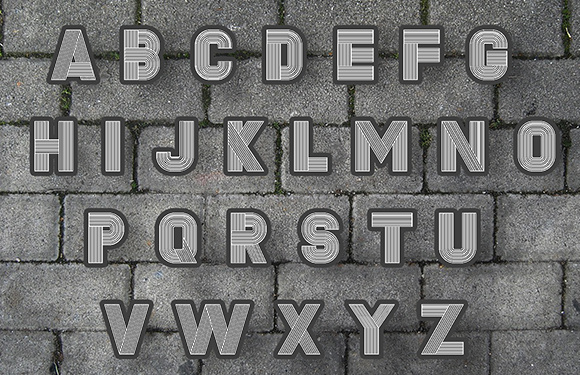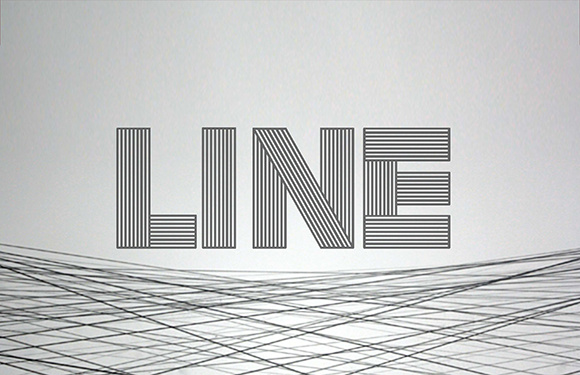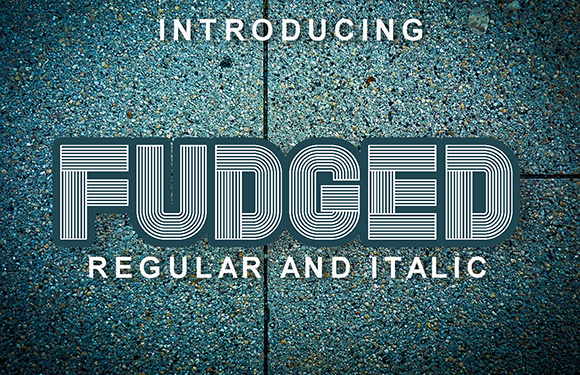
Fudged Font: Elevate Your Designs with a Techno Twist
In the world of typography, fonts play a crucial role in conveying the message and aesthetic of a design. For designers and crafters looking to add a techno edge to their projects, Fudged font is an excellent choice. This versatile font comes in Regular and Italic variants, making it perfect for a wide range of applications, from flyers and posters to various prints and more.
What is Fudged Font?
Fudged is a techno font designed to bring a modern and edgy feel to your designs. Its clean lines and futuristic look make it an ideal choice for projects that require a bold and innovative approach. Whether you’re working on a flyer, poster, or any other print material, Fudged font is sure to make your design stand out.
Key Features of Fudged Font
• Regular and Italic Variants: Fudged font comes in two variants, allowing you to add variety to your designs and emphasize certain elements.
• Techno Aesthetic: The font’s techno design gives it a modern and sleek look, perfect for designs that require a cutting-edge feel.
• Versatility: Fudged font can be used for a wide range of applications, including flyers, posters, prints, and more.
• Easy to Read: Despite its techno look, Fudged font remains clear and easy to read, making it suitable for body text and headings.
Uses of Fudged Font
Fudged font is incredibly versatile and can be used in various design projects. Here are some ideas to get you started:
• Flyers and Brochures: Add a techno twist to your promotional materials with Fudged font.
• Posters: Create eye-catching posters for events, concerts, or exhibitions with Fudged font.
• Prints: Use Fudged font for business cards, letterheads, and other print materials to give them a modern look.
• Digital Media: Fudged font can also be used in digital media, such as social media graphics, website headers, and more.
Tips for Using Fudged Font
To get the most out of Fudged font, here are some tips to keep in mind:
• Pair with Other Fonts: Combine Fudged font with other fonts to create a unique and visually appealing design.
• Experiment with Colors: Try out different color schemes to find the perfect match for your design.
• Use for Headings and Titles: Fudged font works great for headings and titles, but you can also use it for body text for a bold look.
Font Name Fudged Font
Author vladimirnikolic
Fudged font is a fantastic addition to any designer’s toolkit. Its techno aesthetic, versatility, and ease of use make it perfect for a wide range of projects. Whether you’re a professional designer or a crafter, Fudged font is sure to elevate your designs and give them a modern twist. So, download Fudged font today and take your designs to the next level!
With Fudged font, the possibilities are endless. Get creative, experiment with different designs, and see how this amazing techno font can transform your projects.